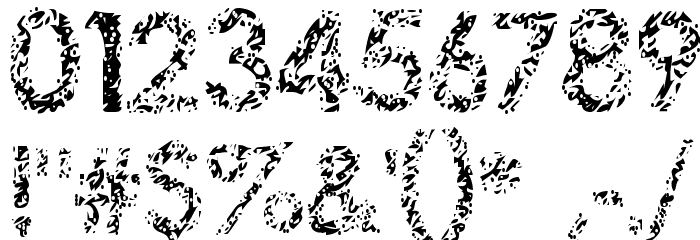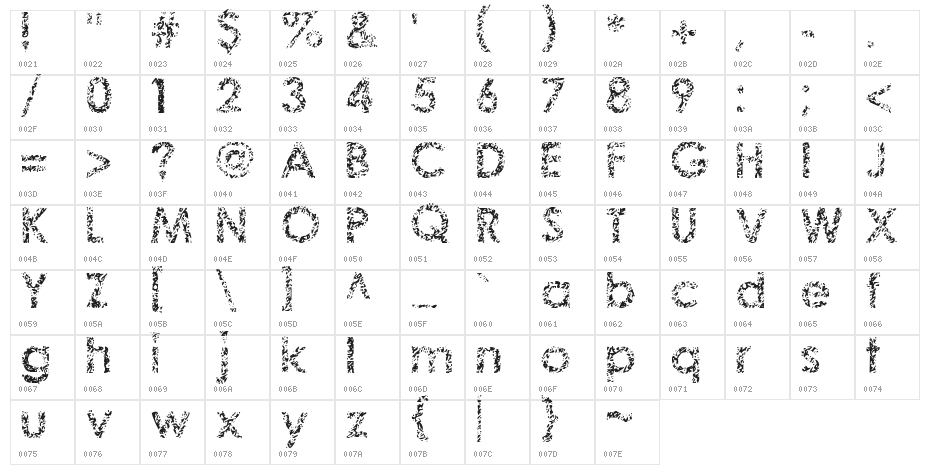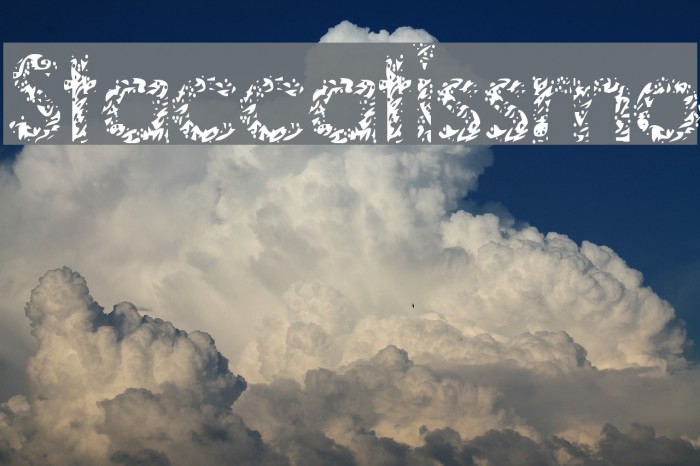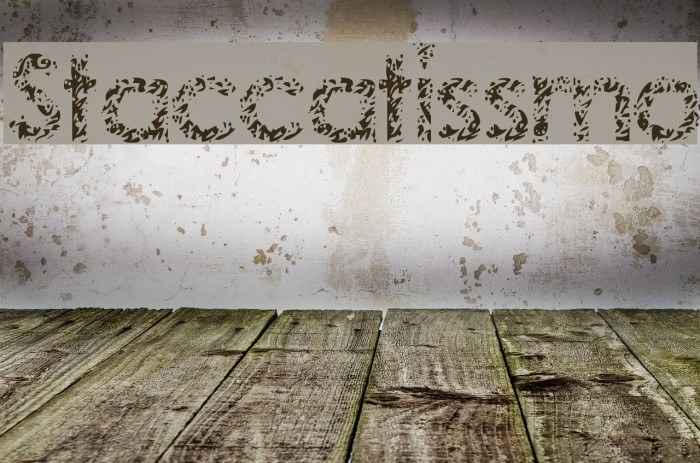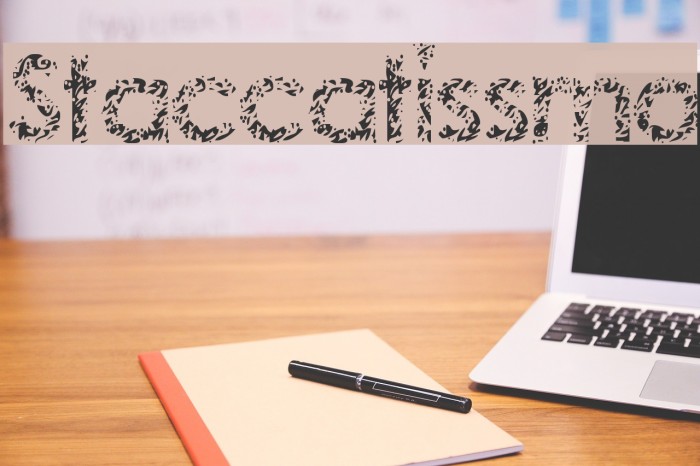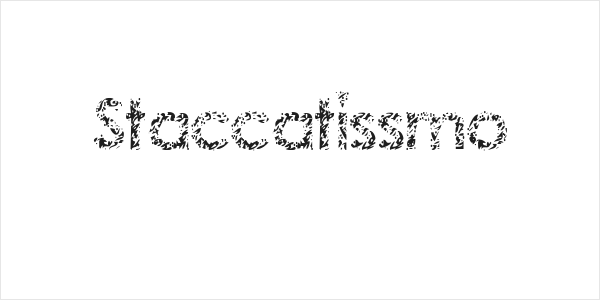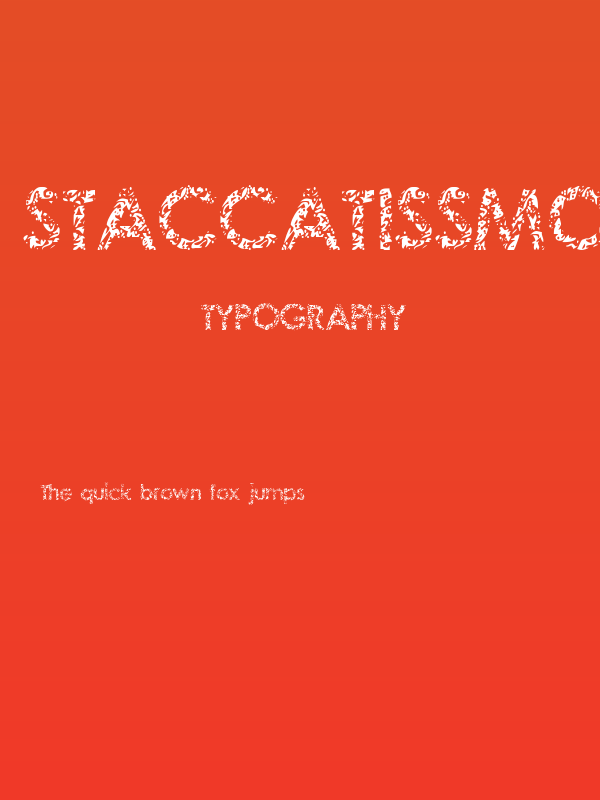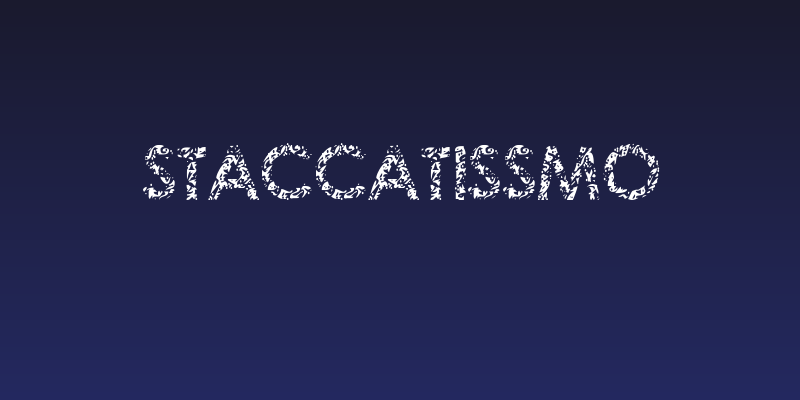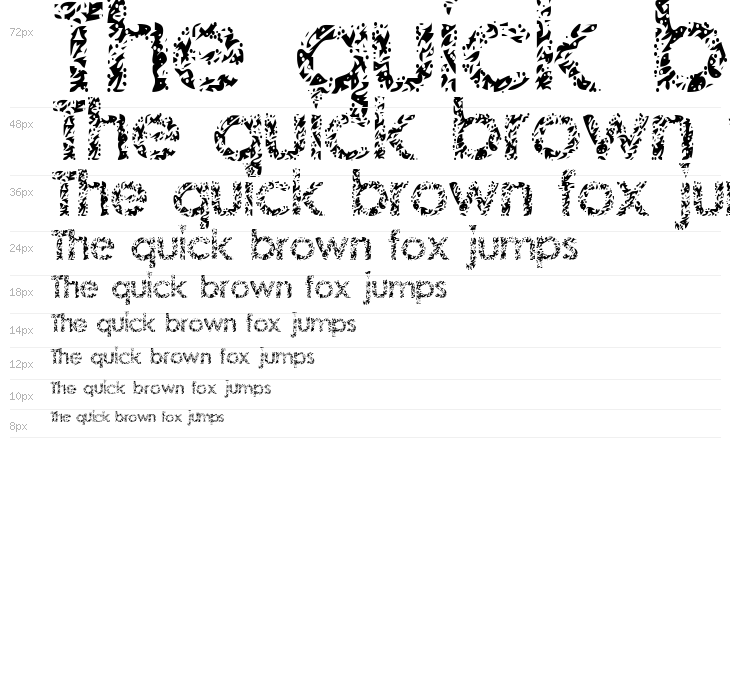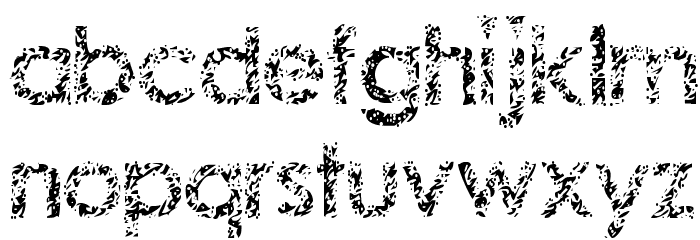
Staccatissmo Font
Staccatissmo Description
This font features a unique, distressed texture that gives it a rugged and artistic appearance. The characters are bold and have a rough, uneven surface, creating a sense of movement and energy. Each letter and number appears as if it has been eroded or splattered with paint, making it ideal for designs that require a gritty, urban feel. The uppercase and lowercase letters maintain a consistent style, with the uppercase being slightly larger and more pronounced. The numbers and special characters follow the same textured pattern, ensuring a cohesive look across all elements.
| Proposed Projects | Ideal for album covers, street art-inspired designs, posters, and edgy branding projects. |